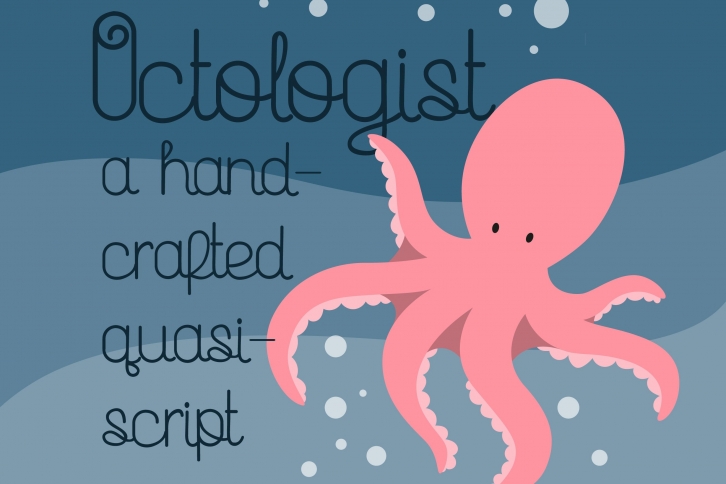
PN Octologist is a trendy and unique font with an authentic style. It was designed by Illustration Ink and it's a great choice for creative people who need such a font. It was released on April 15, 2022 and the file size is 11.83 MB. PN Octologist will add an organic vibe to any design idea!